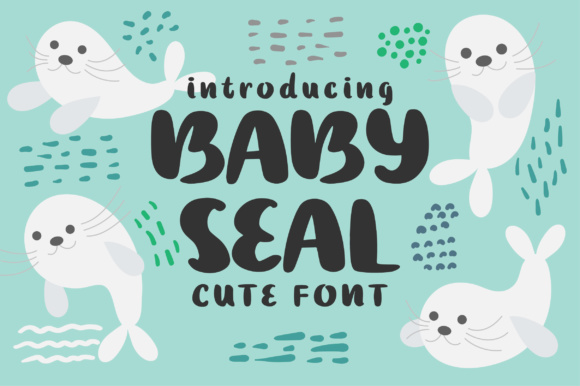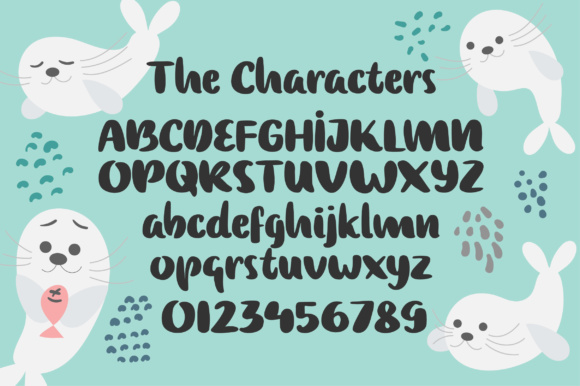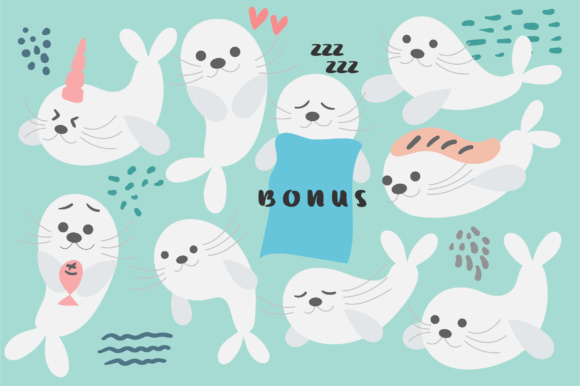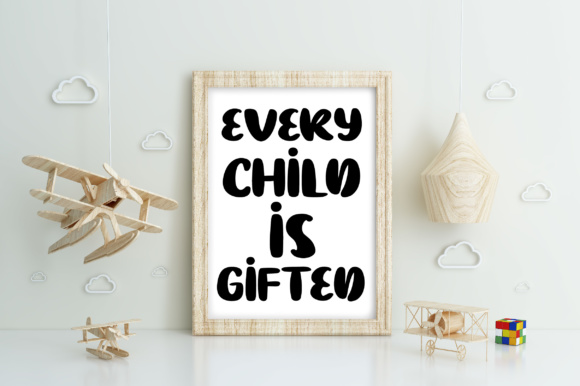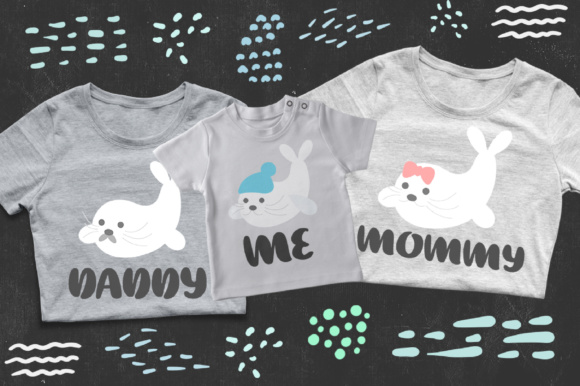
Baby Seal Font
About Baby Seal Font
This is baby seal, a cute handwritten font with seal icons as a bonus. With it’s cute and clear letters, Baby Seal can be used for many designing purposes.